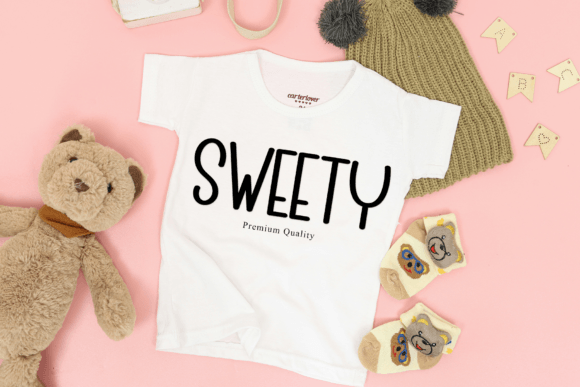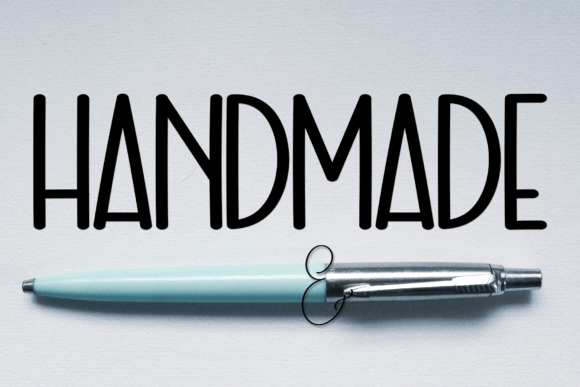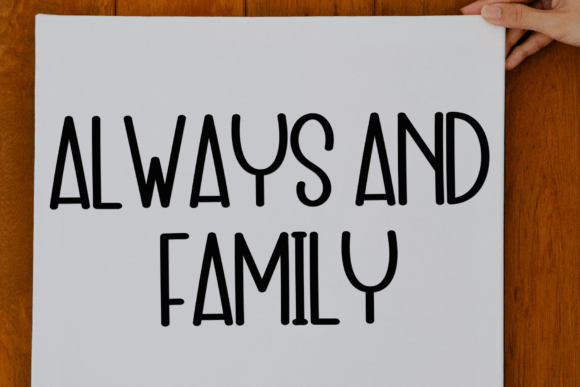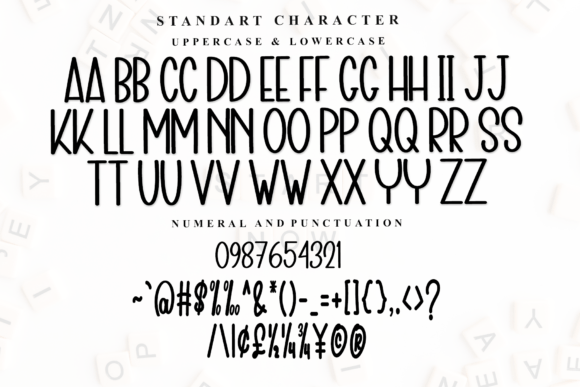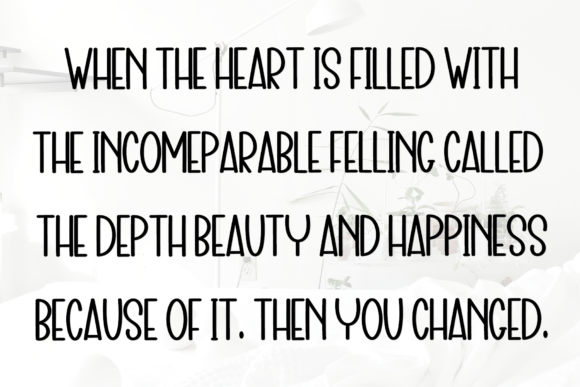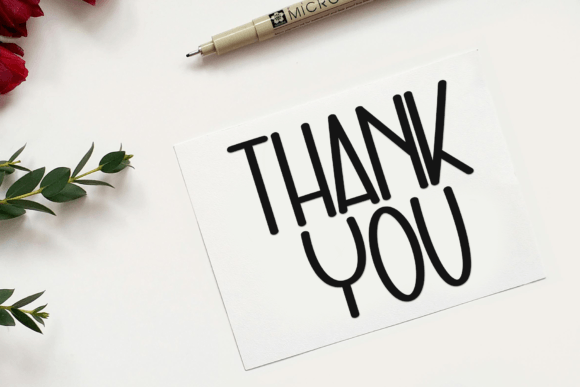
Introduction to Daily Thinking Font
Daily Thinking is a tall and stylish display font that adds a modern touch to your text.
Its sleek lines and bold look make it perfect for headlines and eye-catching designs .
Key Features of Daily Thinking Font
Why Choose Daily Thinking Font?